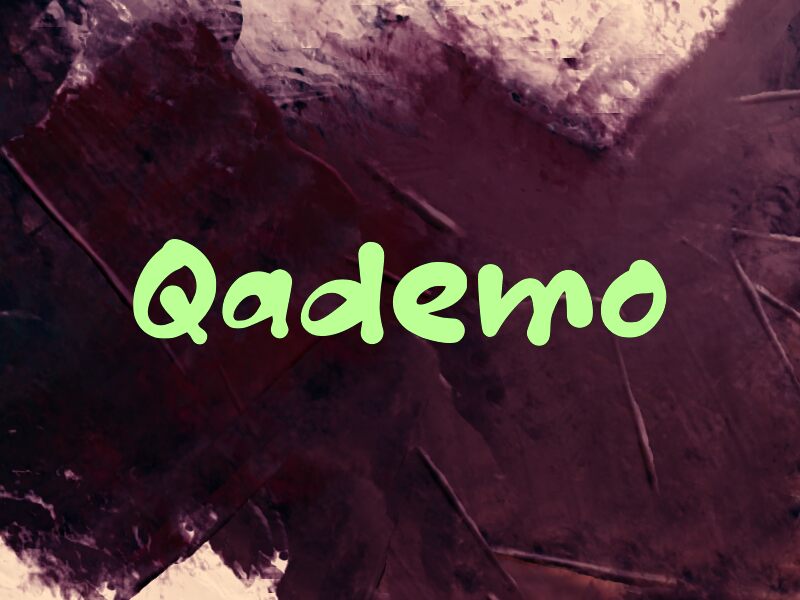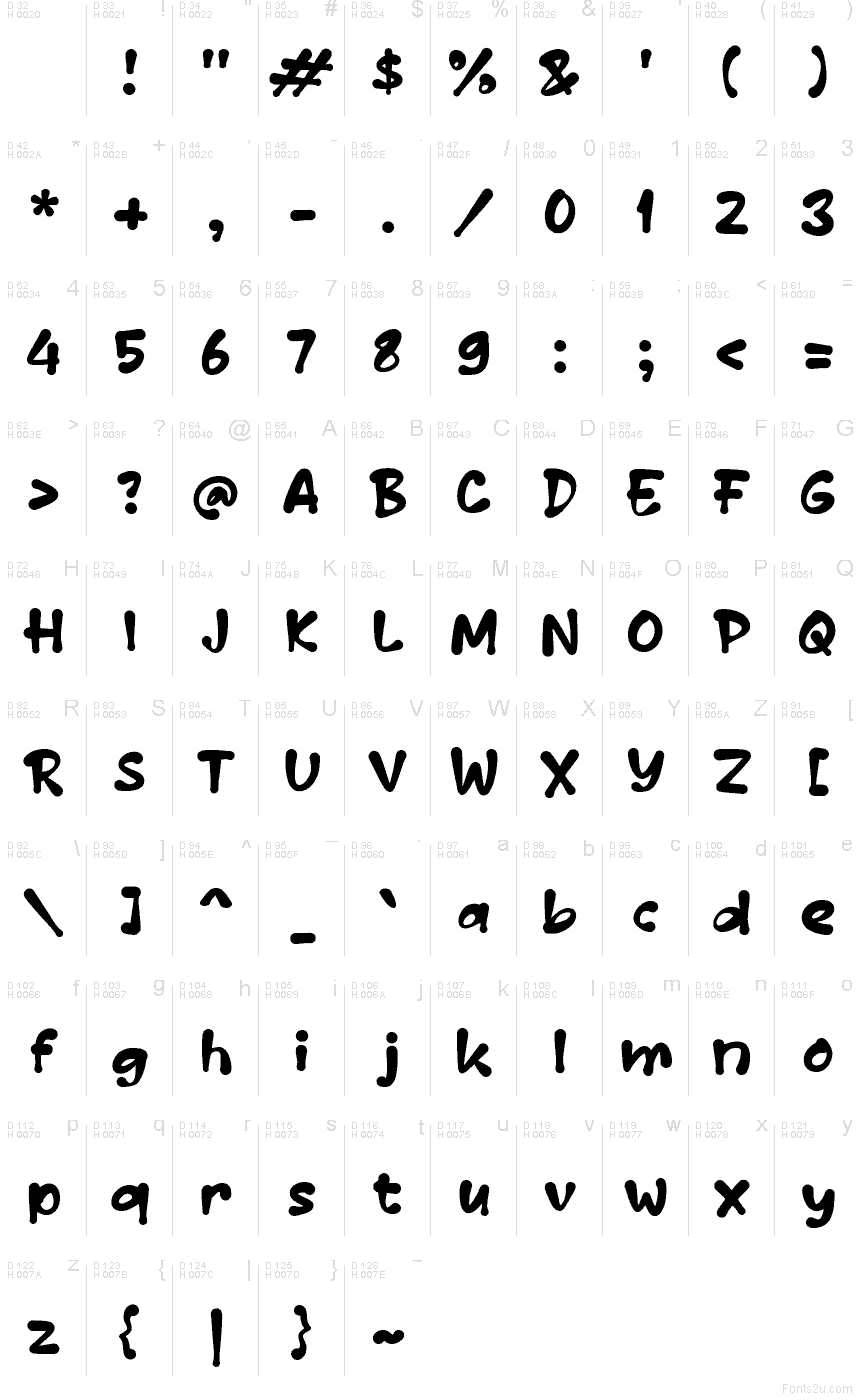
Qademo
Qademo font by wep is a free cartoon display typeface that looks like it’s been painted in thick, inky strokes. Its bold, rounded forms feel loose and hand-drawn, with just enough wobble to stay playful without turning messy. The letters bunch together in a friendly way, giving headlines a lively, informal bounce that grabs attention instantly.
Using Qademo, your titles feel fun, energetic, and a bit mischievous—great for kids’ posters, comic covers, snack or toy packaging, YouTube thumbnails, game logos, and playful branding. This free font shines when you let it go big and bold, then pair it with a simple geometric sans for small supporting text to keep everything readable and balanced.